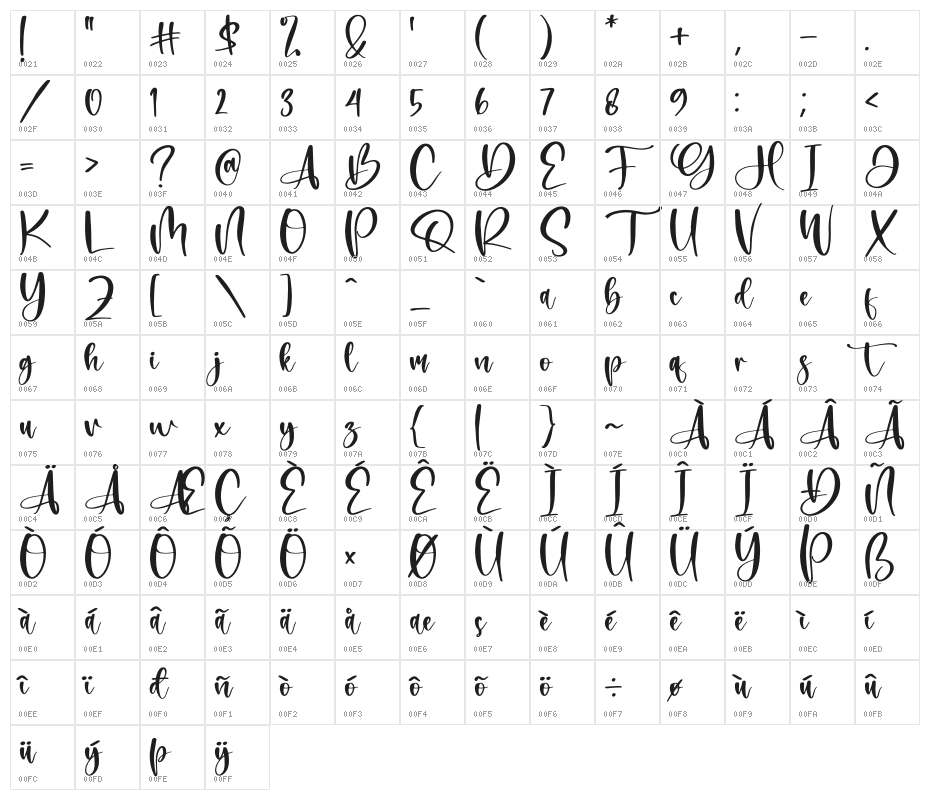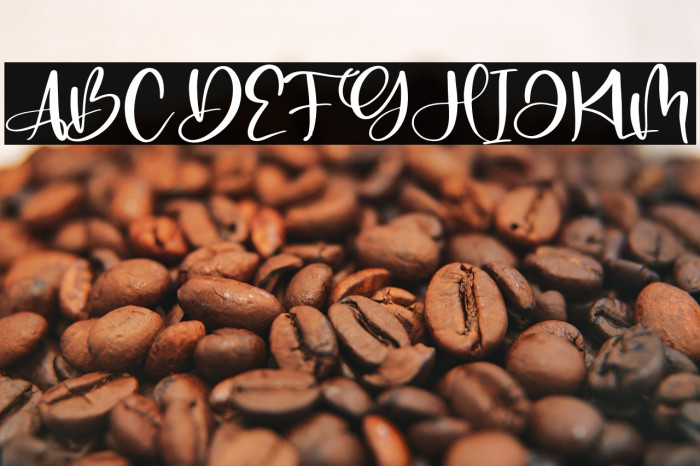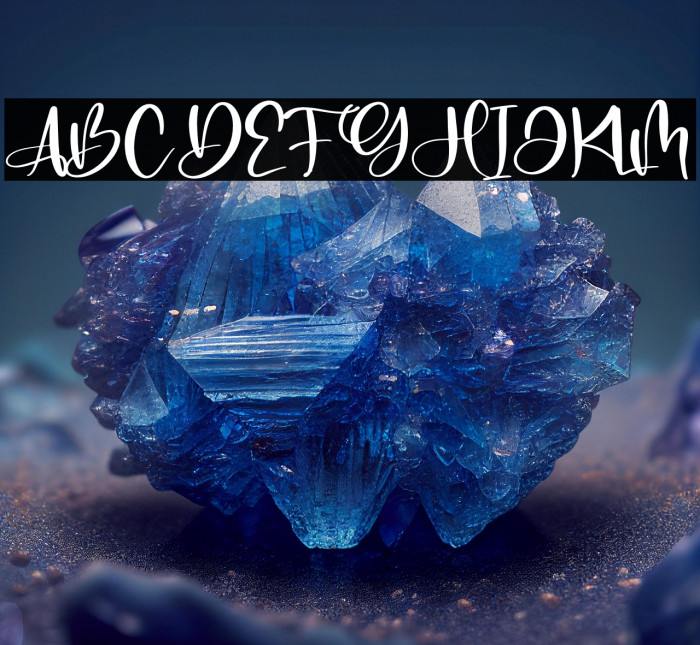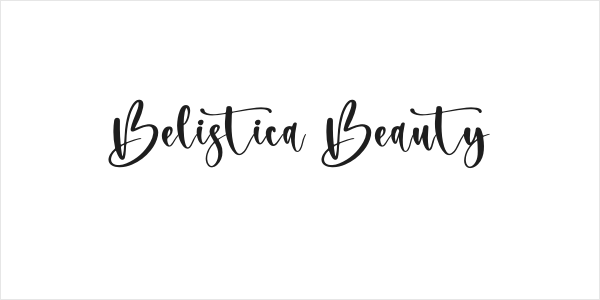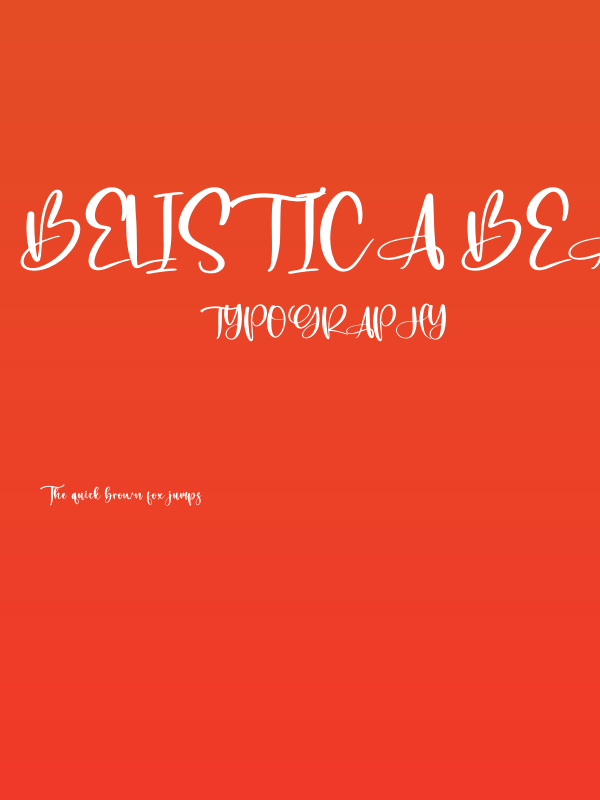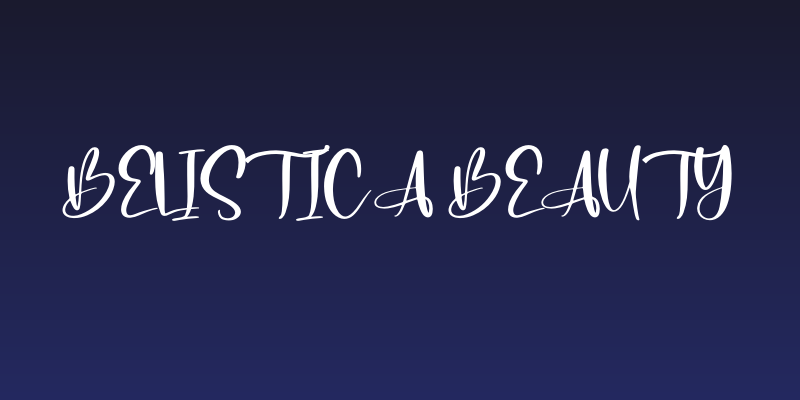
Belistica Beauty Font
Belistica Beauty Description
This font exudes a sense of elegance and fluidity, characterized by its script style with a handwritten appearance. The letters are connected with smooth, flowing strokes that give it a personal and artistic touch. The uppercase letters are bold and prominent, while the lowercase letters maintain a consistent flow, enhancing readability. The numerals and special characters are designed to match the overall aesthetic, ensuring a cohesive look across all text. This font is perfect for projects that require a touch of sophistication and creativity.
| Overall Style | Elegant, Artistic |
| Proposed Projects | Ideal for wedding invitations, greeting cards, branding, and social media graphics. |